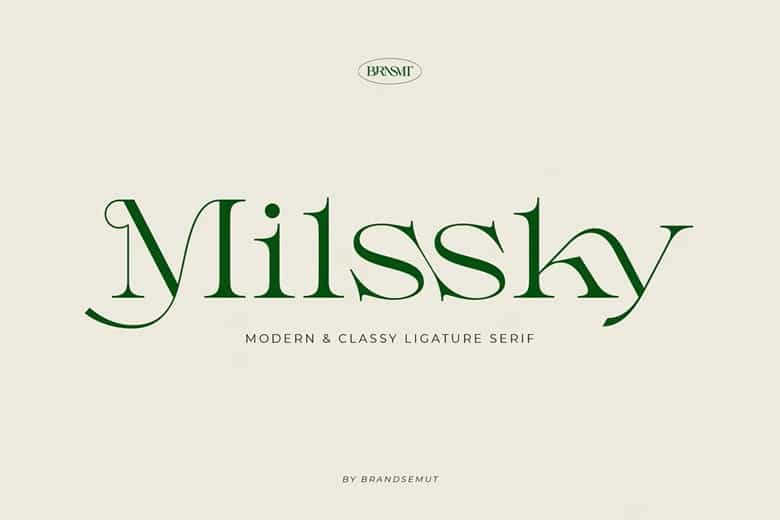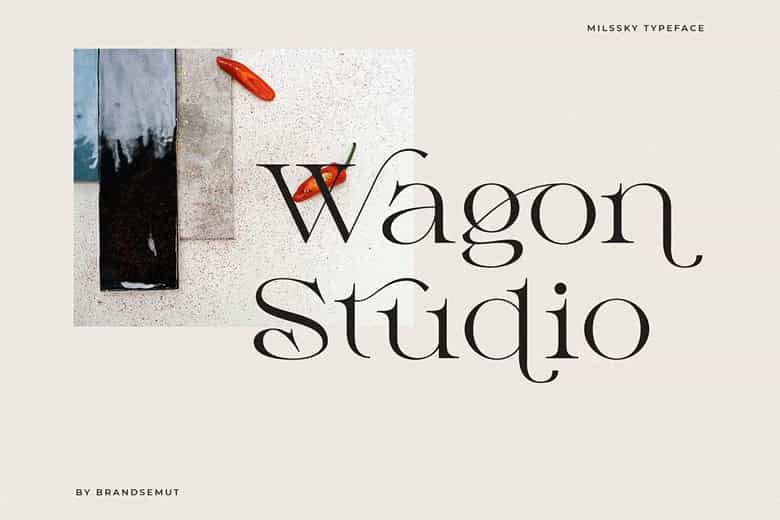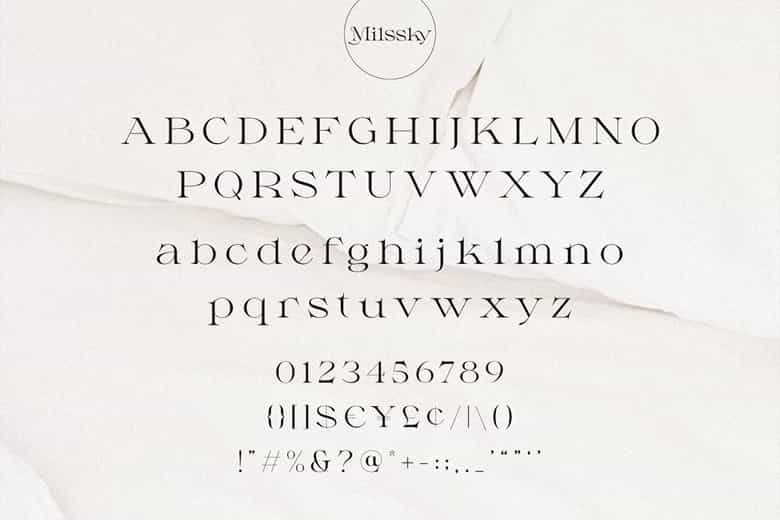
Milssky – a is modern serif font with tons of ligatures and stylistic alternates. Milssky font, best used as a display for headings, logos, branding, magazines, product packaging and invitations. Milssky come with clean lines and smooth curves give any project an extra touch of class.